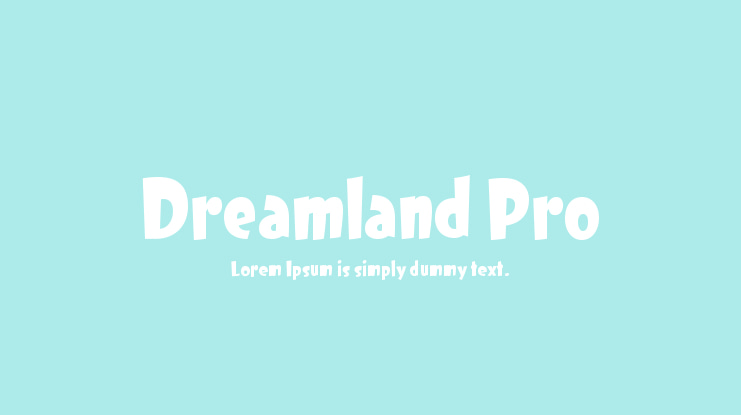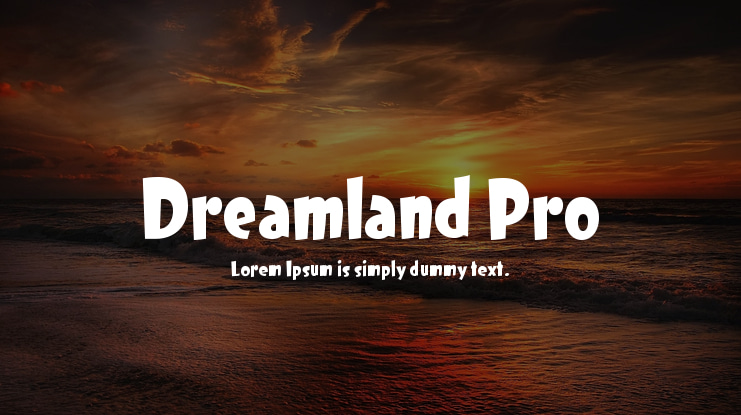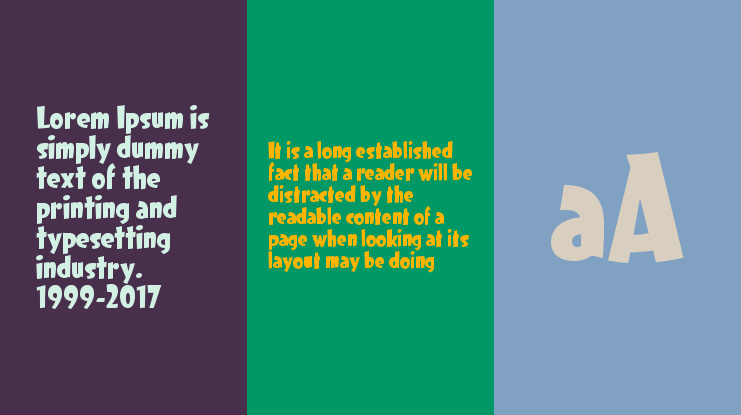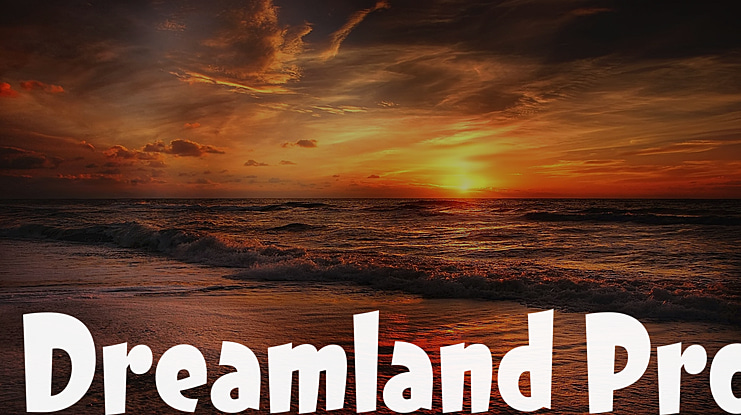
Dreamland Pro Font
Jim Parkinson
Think thirties retro with a sense of humor, and you’re in Dreamland: a fun and funky typeface from Jim Parkinson. Dreamland’s irreverent personality and profound weight make it perfect for headlines and display copy.
Dreamland grew out of Parkinson’s interest in the top-heavy showcard lettering styles of the early to mid-twentieth century. “There were a large variety of these styles from designers like Ross George (the Speedball lettering wizard), Samuel Welo of Chicago and Cecil Wade in England,” says Parkinson. “My first top-heavy showcard font was all caps and a little conservative. Dreamland has a lowercase and is less restrained.” As for the name Dreamland: it’s an a.k.a. for Area 51 in Nevada, where UFO believers suspect aliens (or their remains) may be held by the government.